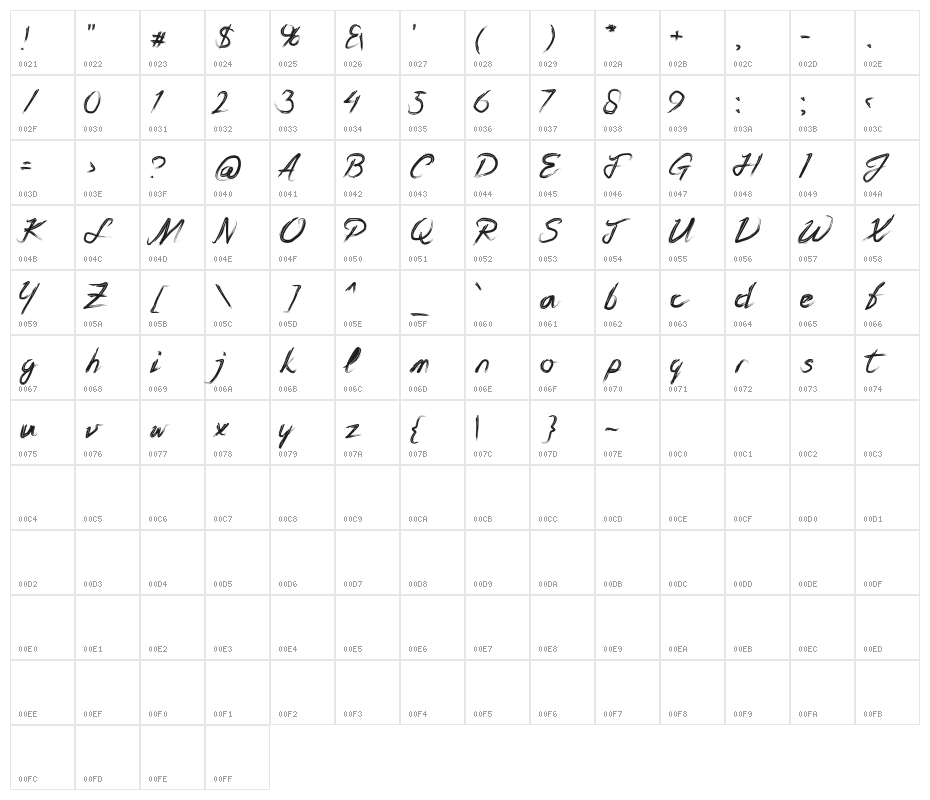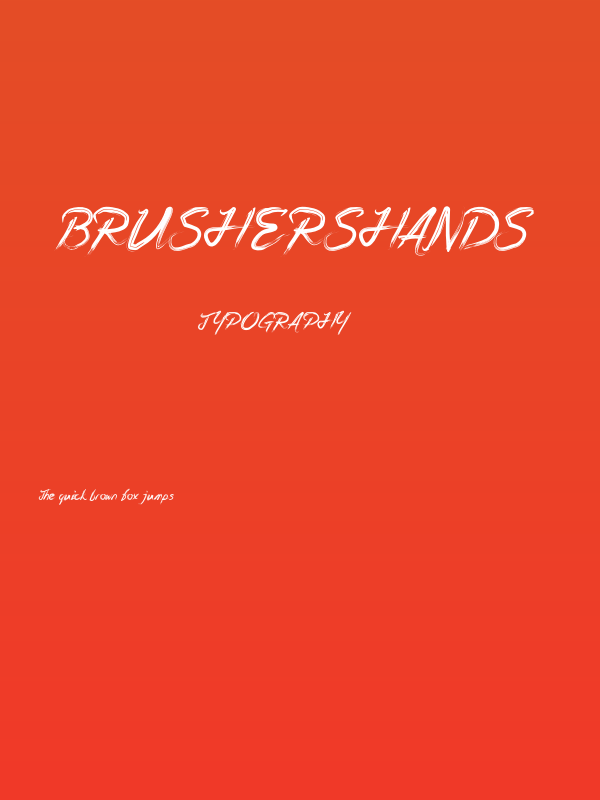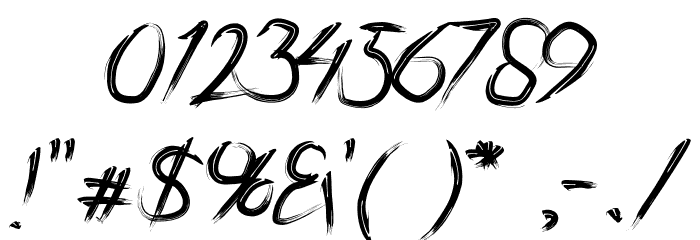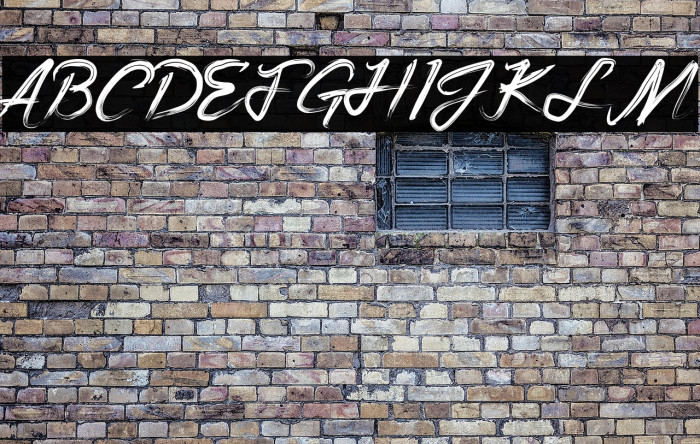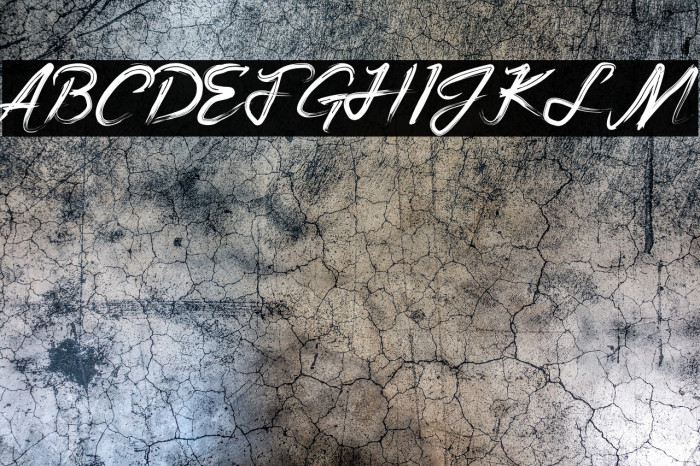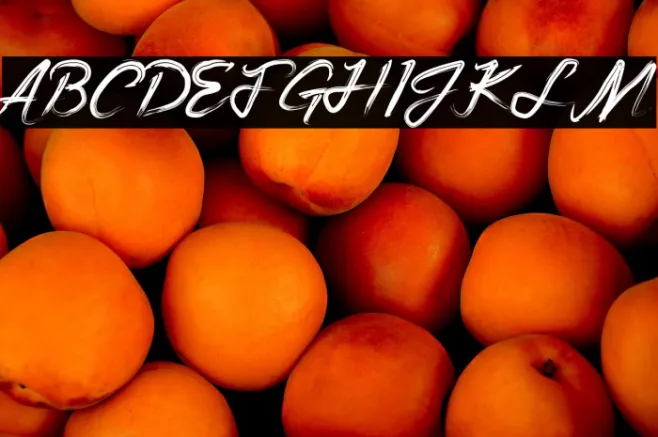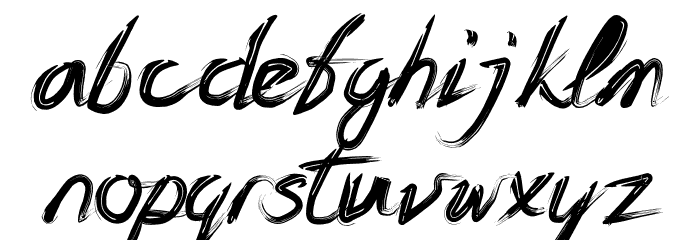
BrushersHands Font
BrushersHands Description
This font features a dynamic and expressive brush script style, characterized by its fluid strokes and energetic appearance. The letters are crafted with a sense of movement, giving them a lively and artistic feel. The uppercase and lowercase letters maintain a consistent flow, with varying stroke widths that add depth and texture. The numbers and special characters complement the alphabet with the same brush-like quality, making the font versatile for creative projects. Its unique style is perfect for adding a personal touch to designs, capturing attention with its bold and artistic flair.